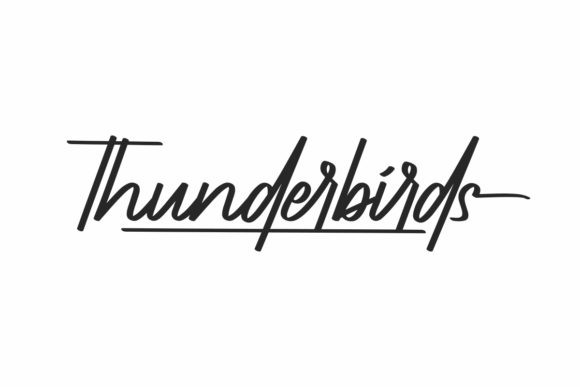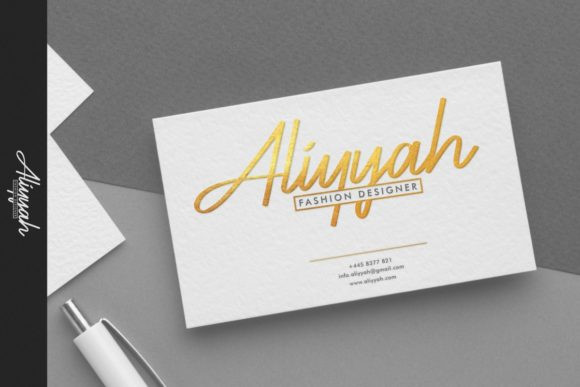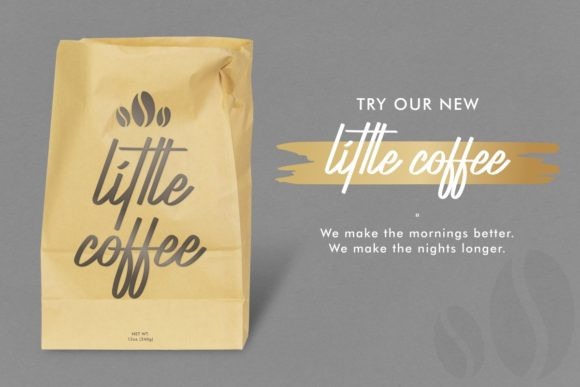
Thunderbirds Font
Thunderbirds FontThunderbirds is a fine, beautiful and well crafted handwritten font. This font is PUA encoded which means you can access all of the glyphs and swashes with ease!